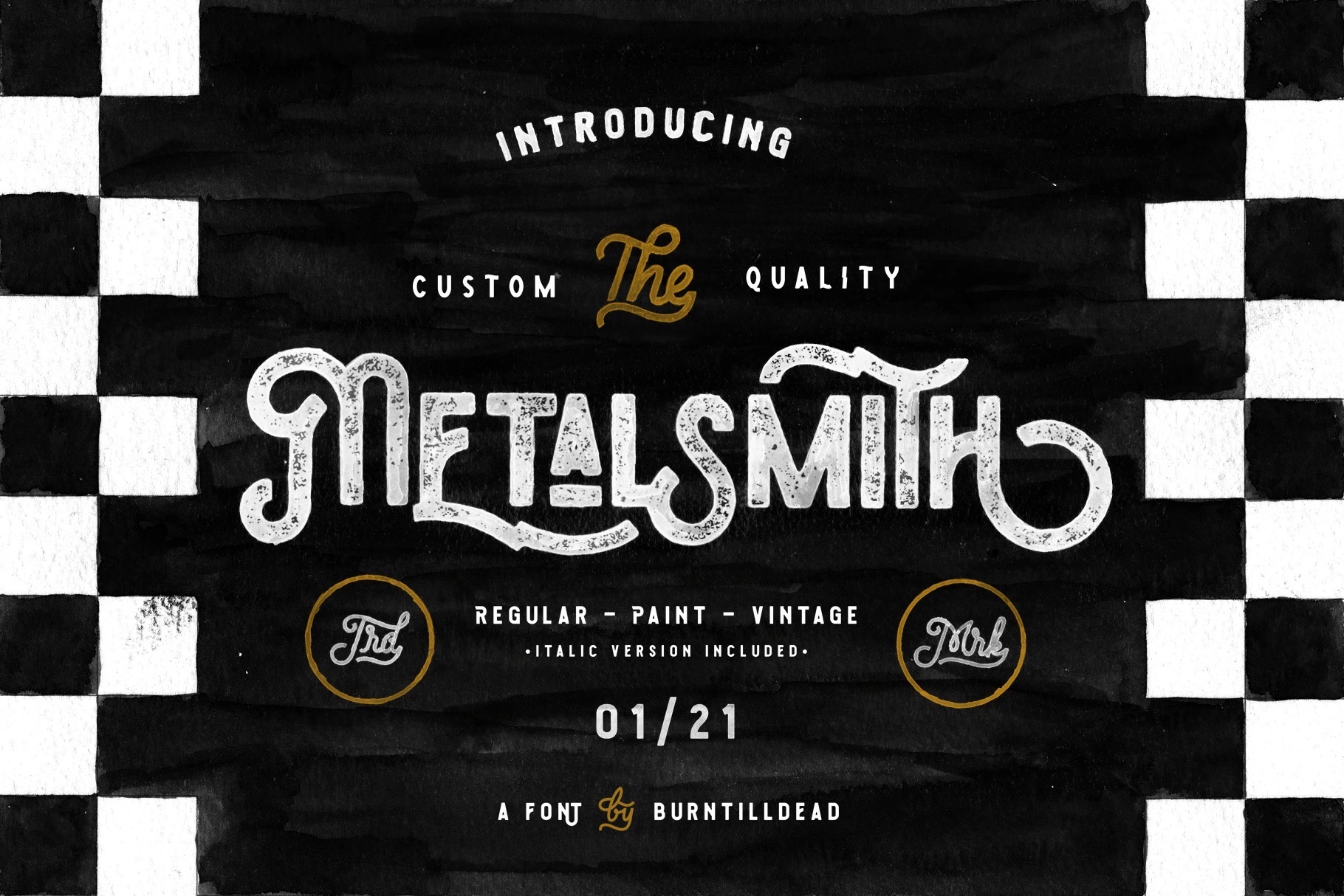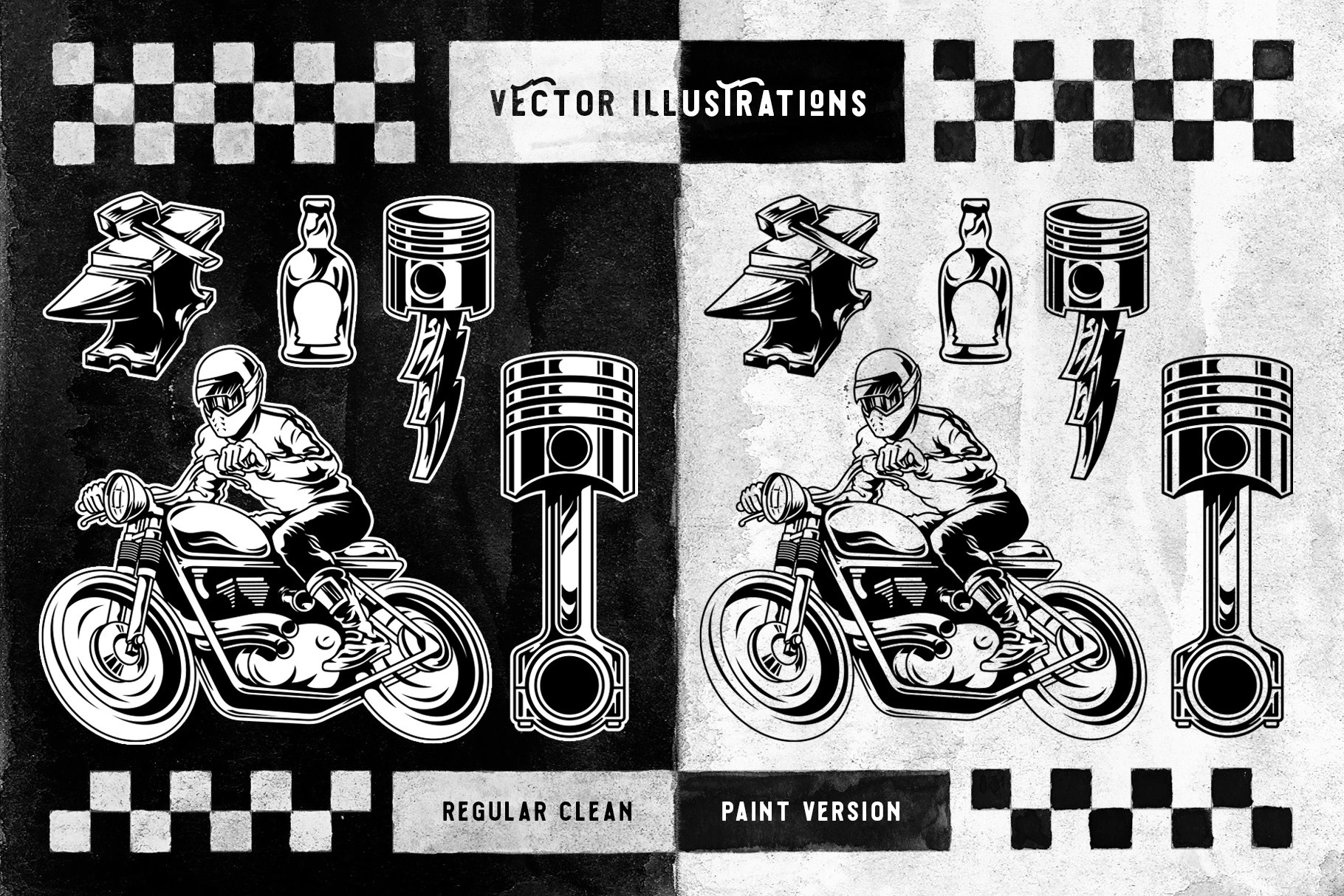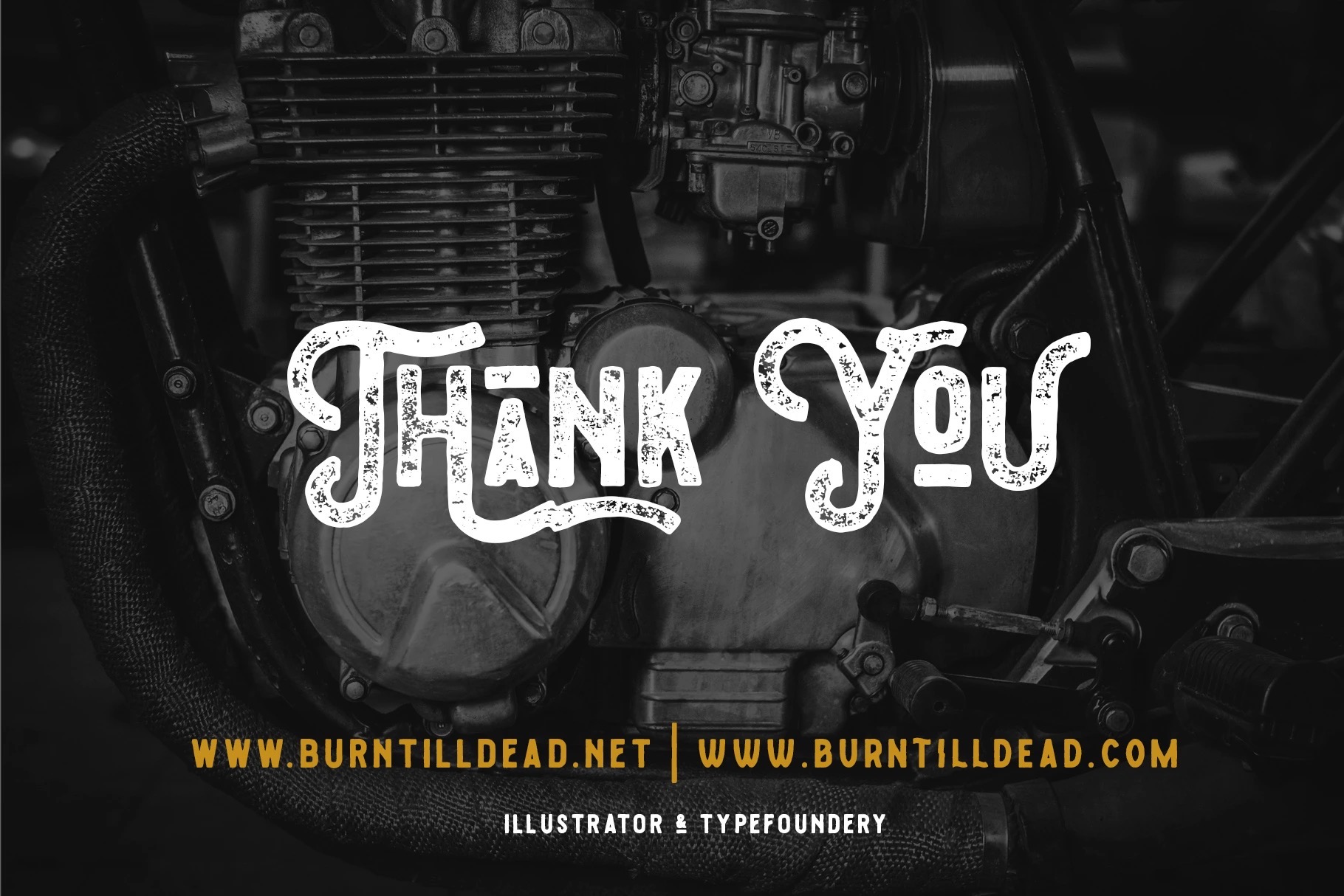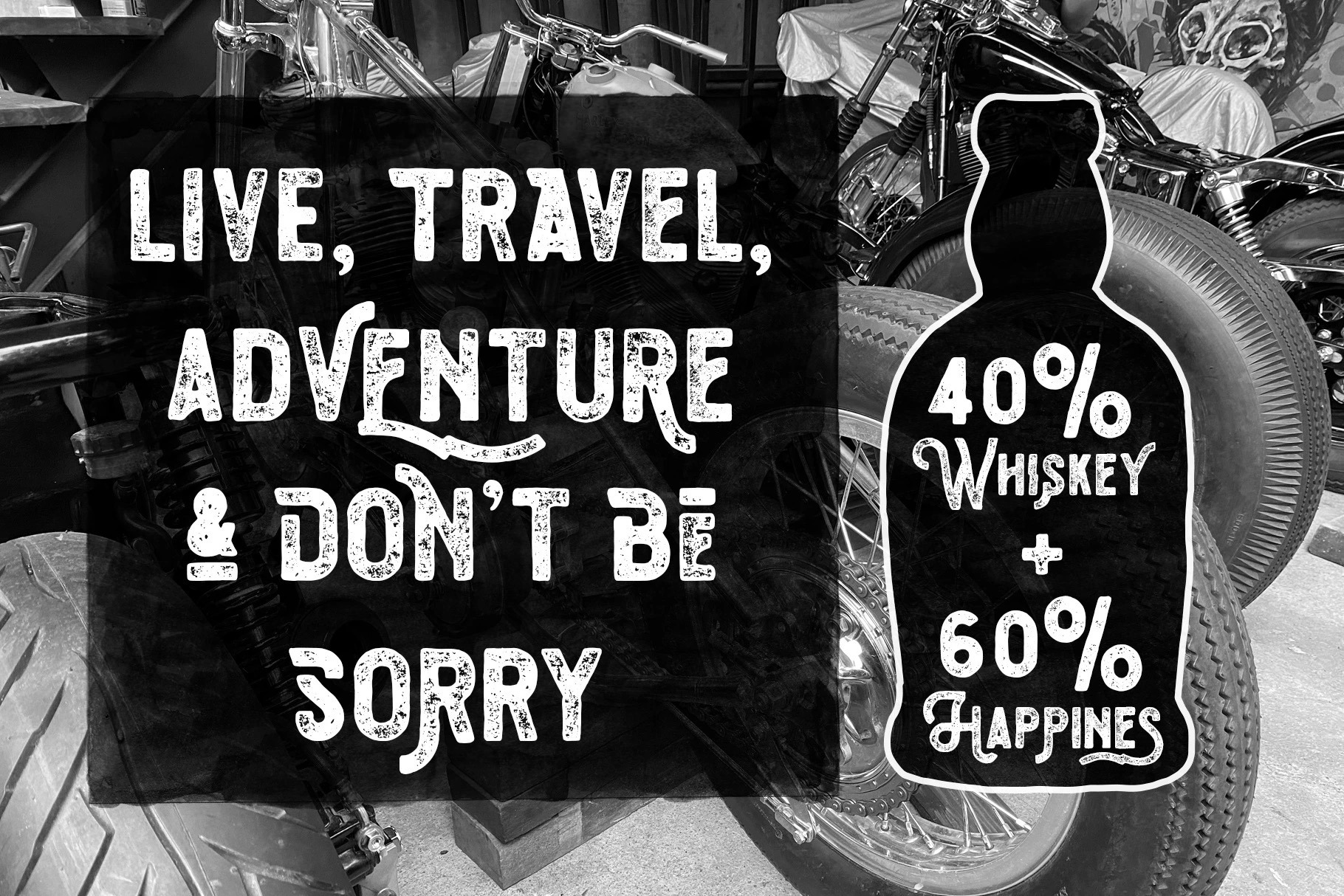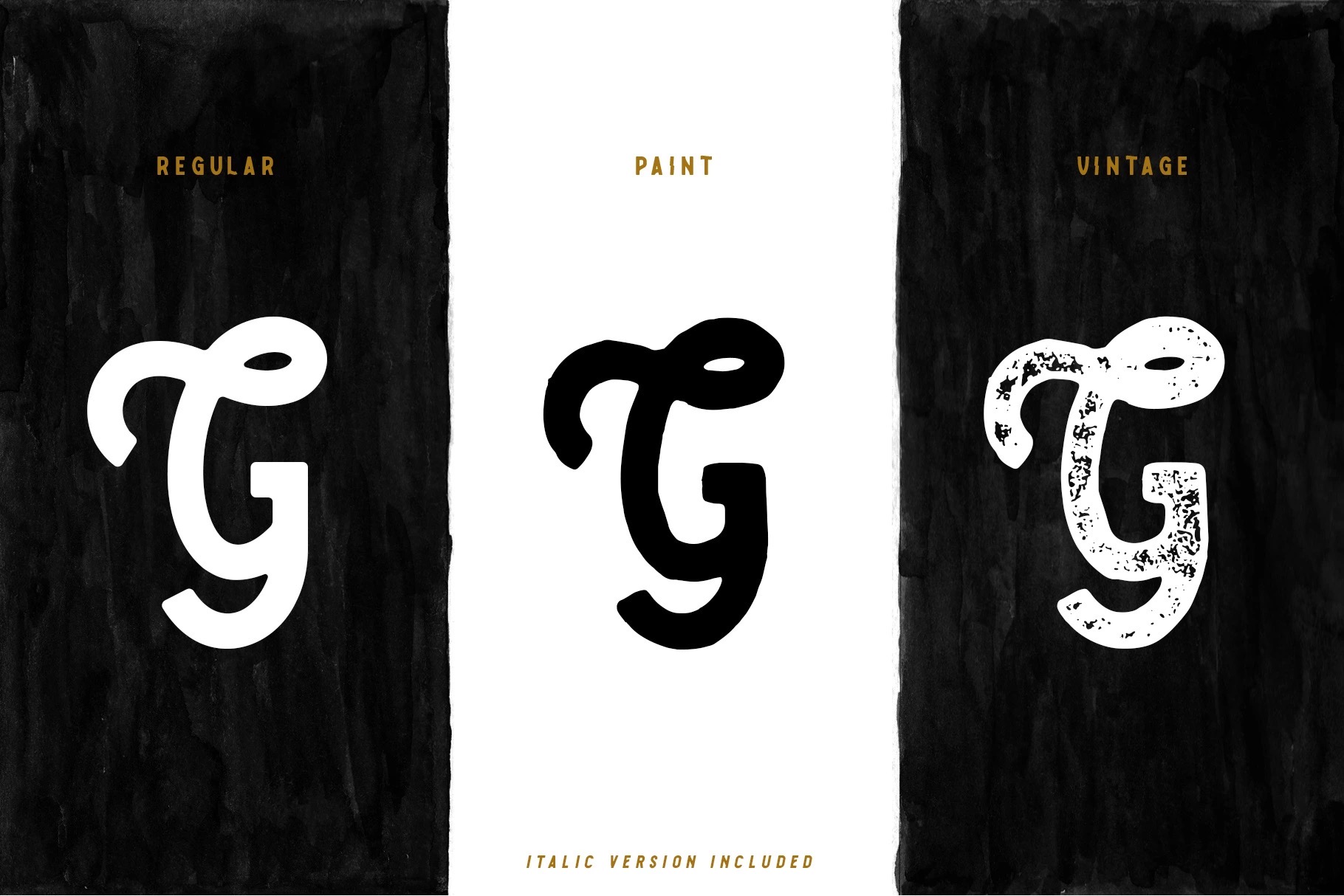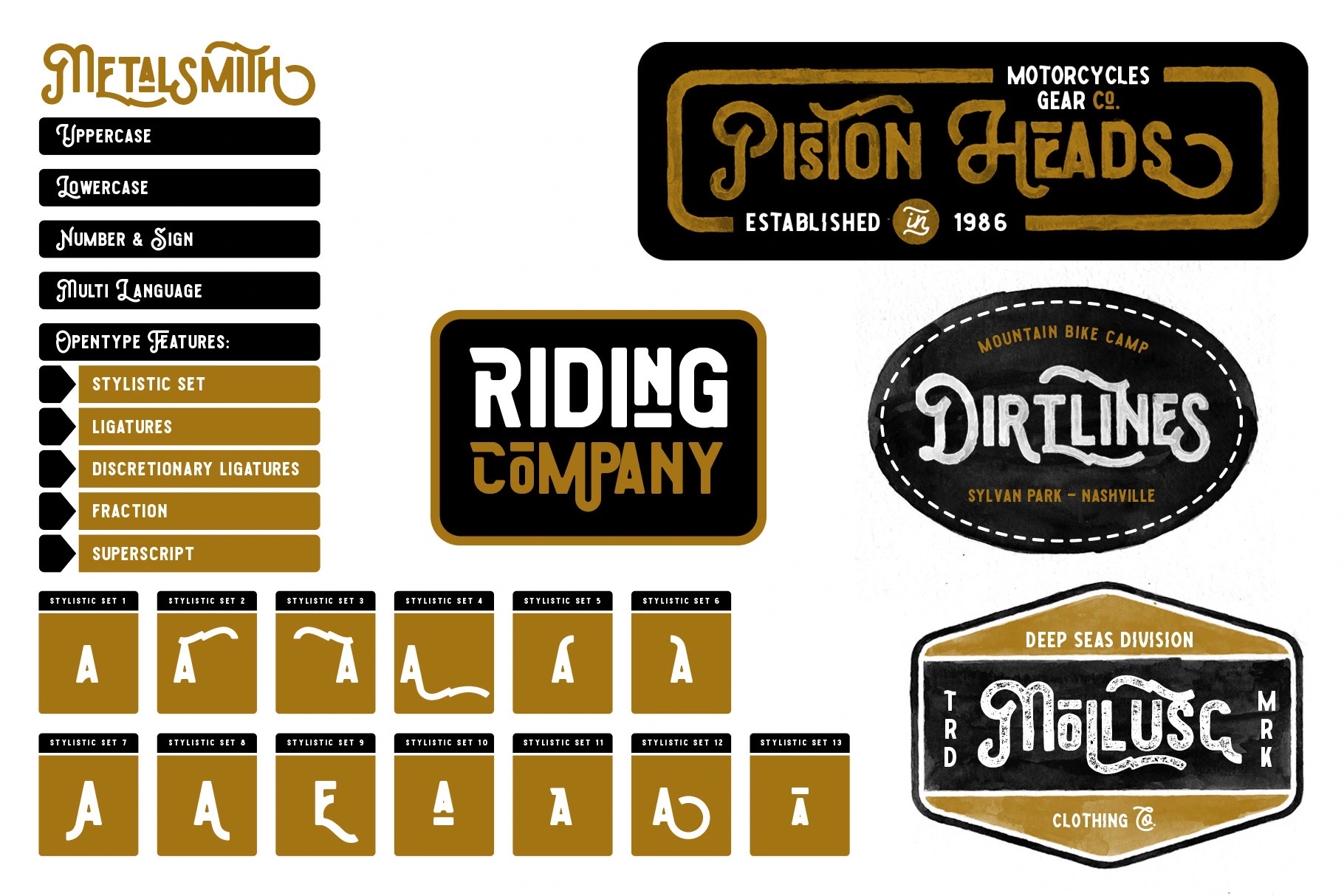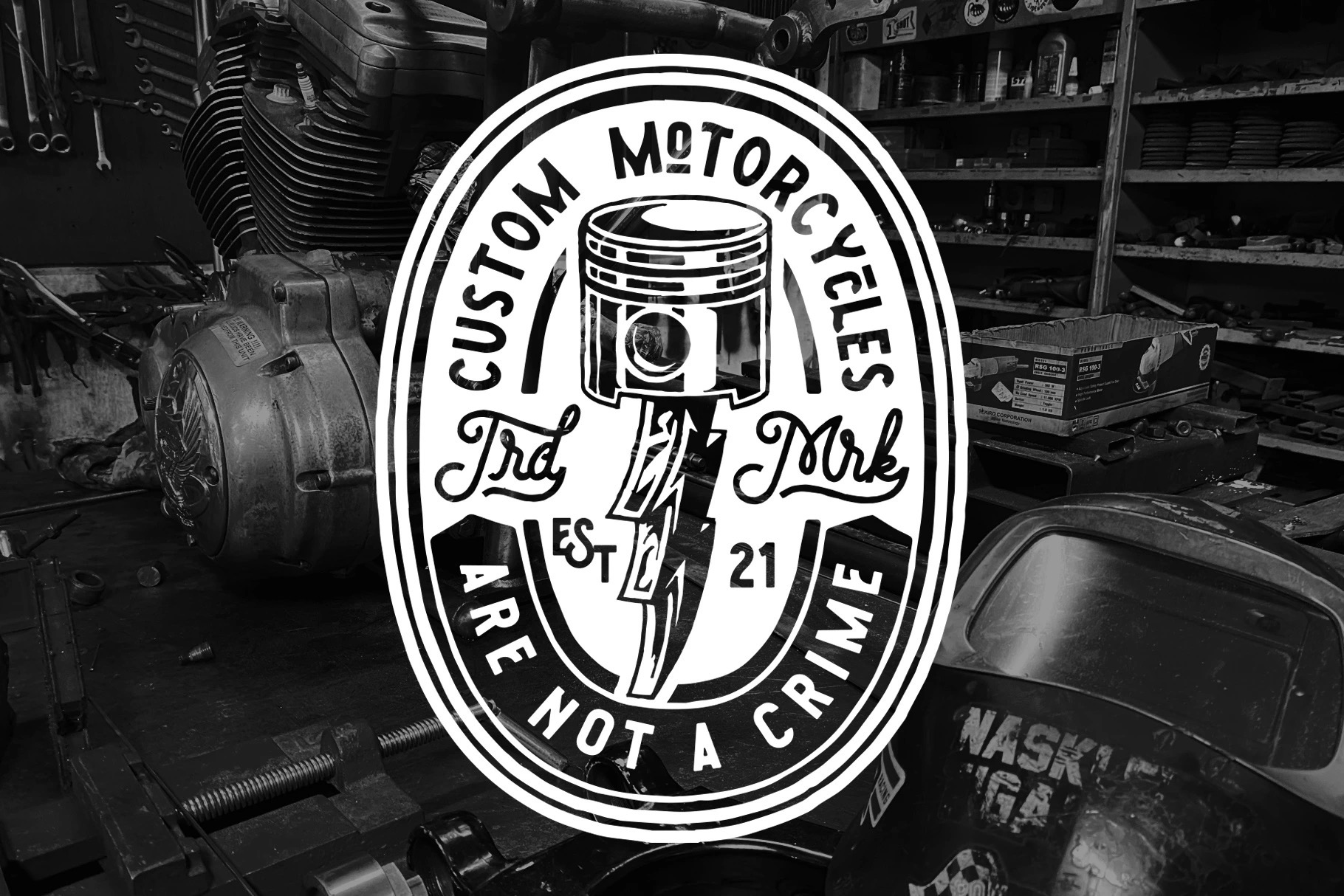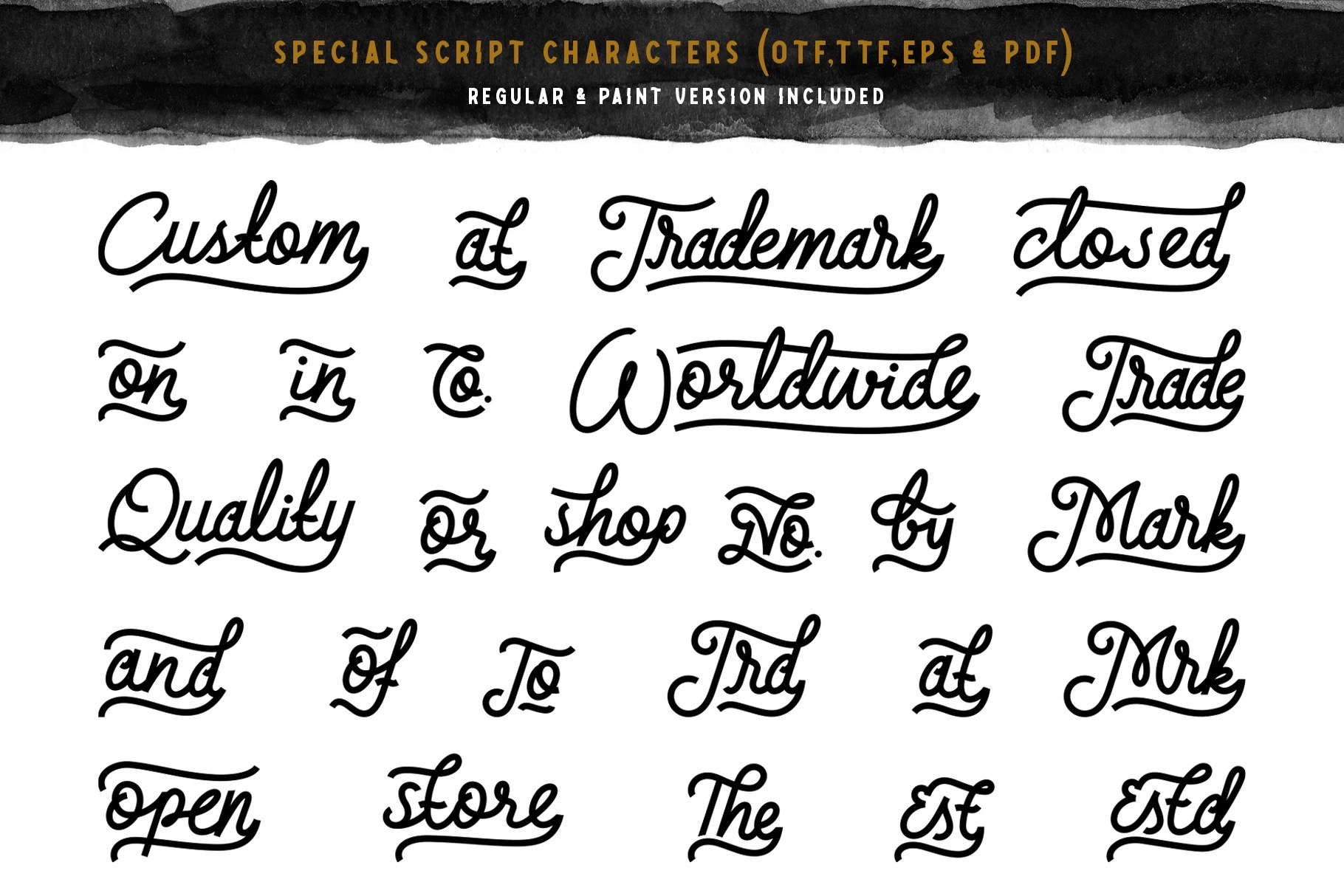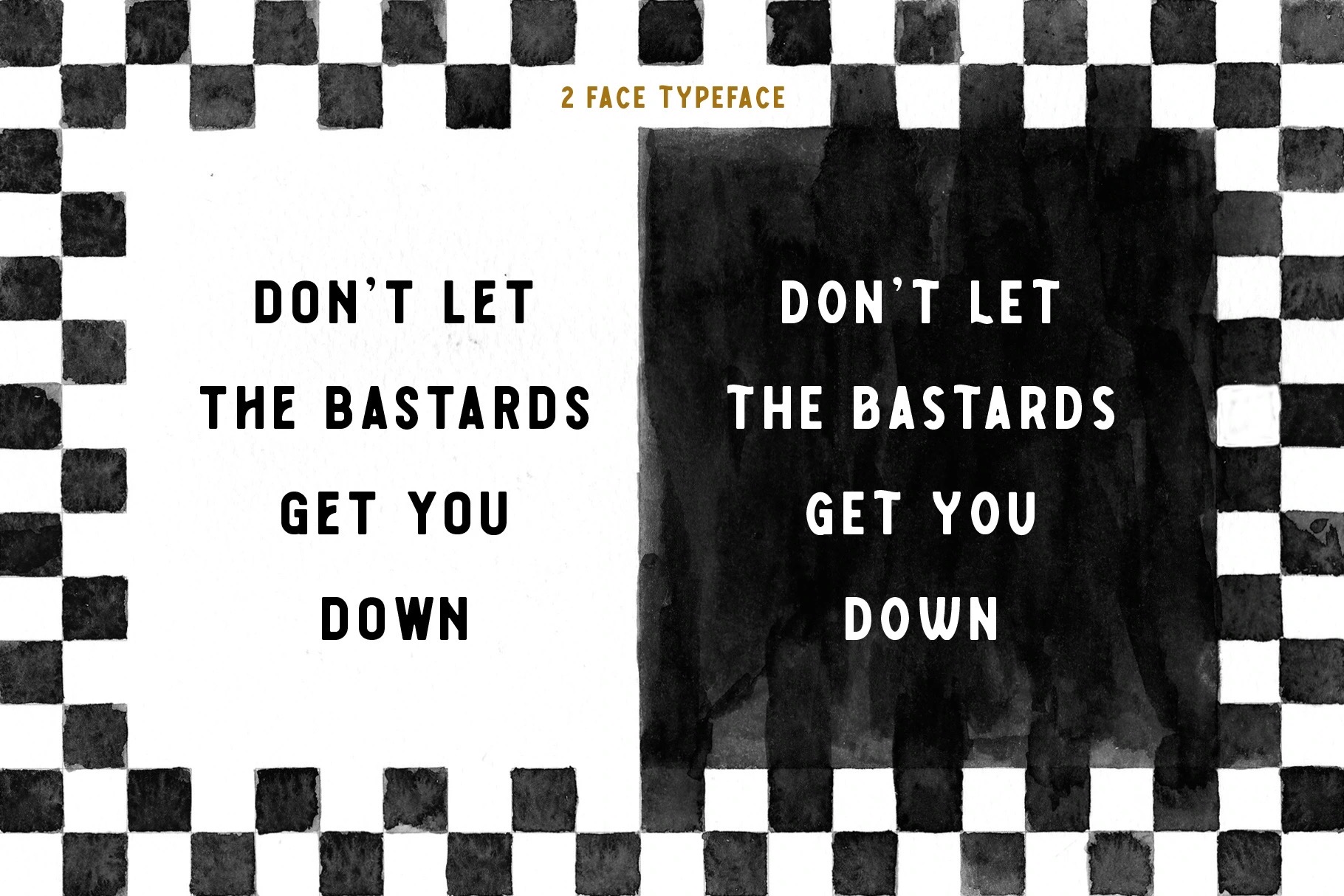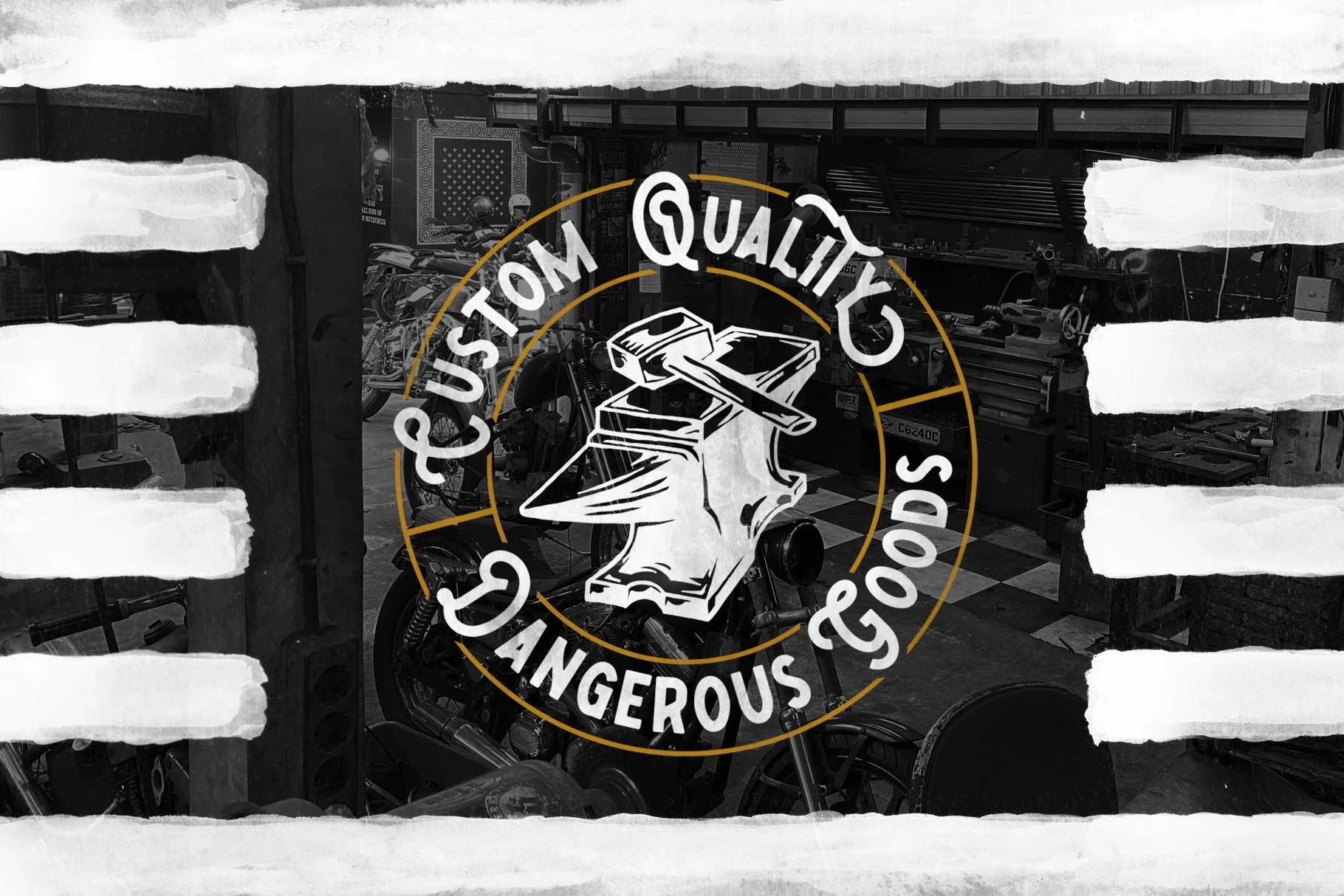
- Metalsmith – Custom Culture Typeface
Say hi to “Metalsmith” font family, a stylish custom culture typeface.
Started from the enthusiasm of custom motorcycles, artsy looks of hand made typefaces & illustrations, along with the freedom vibes that came with it, become the first motivation in making this Metalsmith typeface.
Packed up with three styles font; regular Clean, Ink Paint & Vintage textured. Italic version on each styles are included.
There are 655 glyphs on each styles font including Stylistic sets, Discretionary Ligatures, Standard Ligatures, Contextual Alternates etc. Powered with OpenType features that allows you to mix and match pairs of letters to fit into your design.
Metalsmith script font bonus came in 26 script characters, see the preview on page 7. Really bring an identical looks once you combine with the regular font family.
We believe a good hand made font will look perfect if also came with the illustrations, so we made it just for you! Came in 2 styles; regular clean & painted version, the bonus Vector illustrations is available in EPS, AI & PDF.